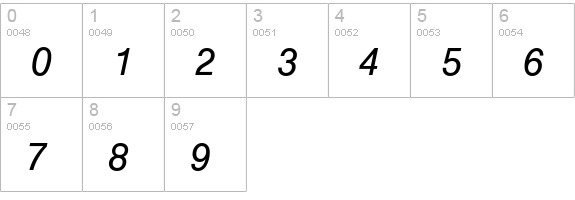
NimbusSanT Italic is a distinctive, italic variant in the NimbusSanT typeface family \xE2\x80\x94 well suited to design and typography projects.
NimbusSanT Italic is a sleek and modern typeface that exudes elegance and sophistication. With its stylish slanted design, it adds a touch of flair to any project or design. The smooth curves and unique letterforms of NimbusSanT Italic make it perfect for creating eye-catching headlines, logos, and signage. What makes NimbusSanT Italic even more appealing is that it is available for free download at FontsMarket.com. This means you can easily access this beautiful font without any cost, making it a great choice for designers and creatives looking to enhance their work without breaking the bank. Let NimbusSanT Italic elevate your projects with its distinct style and versatility.